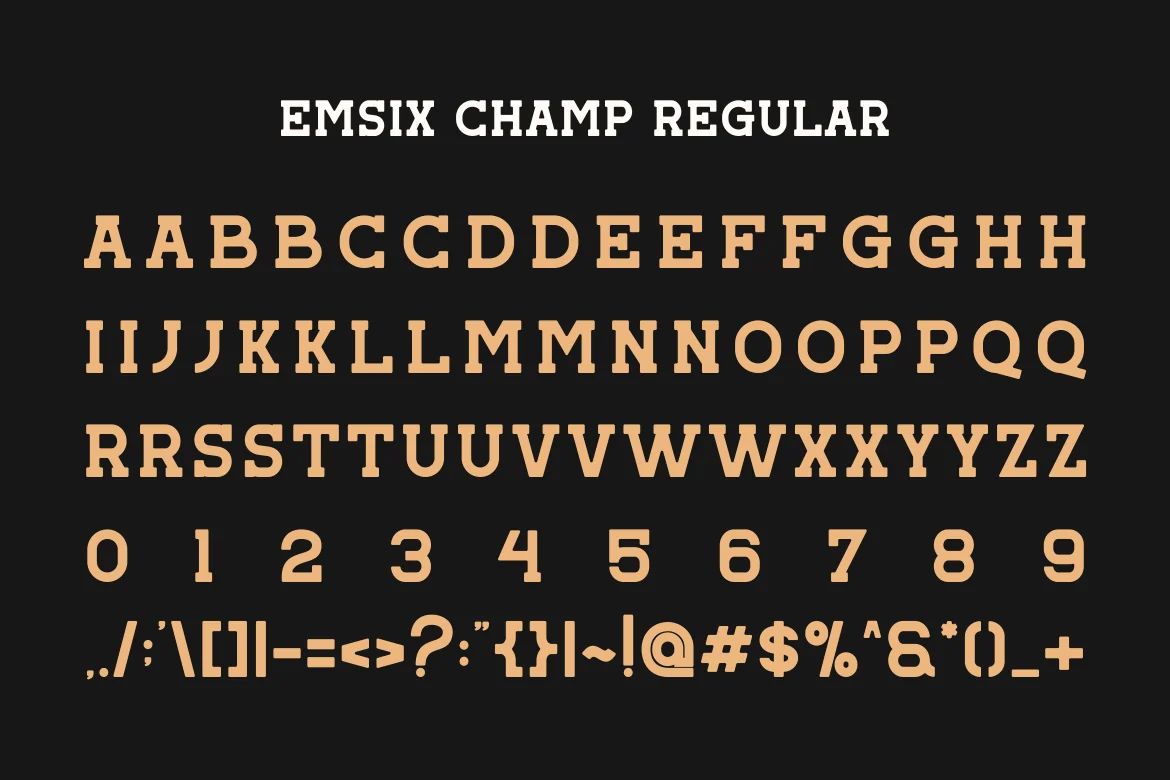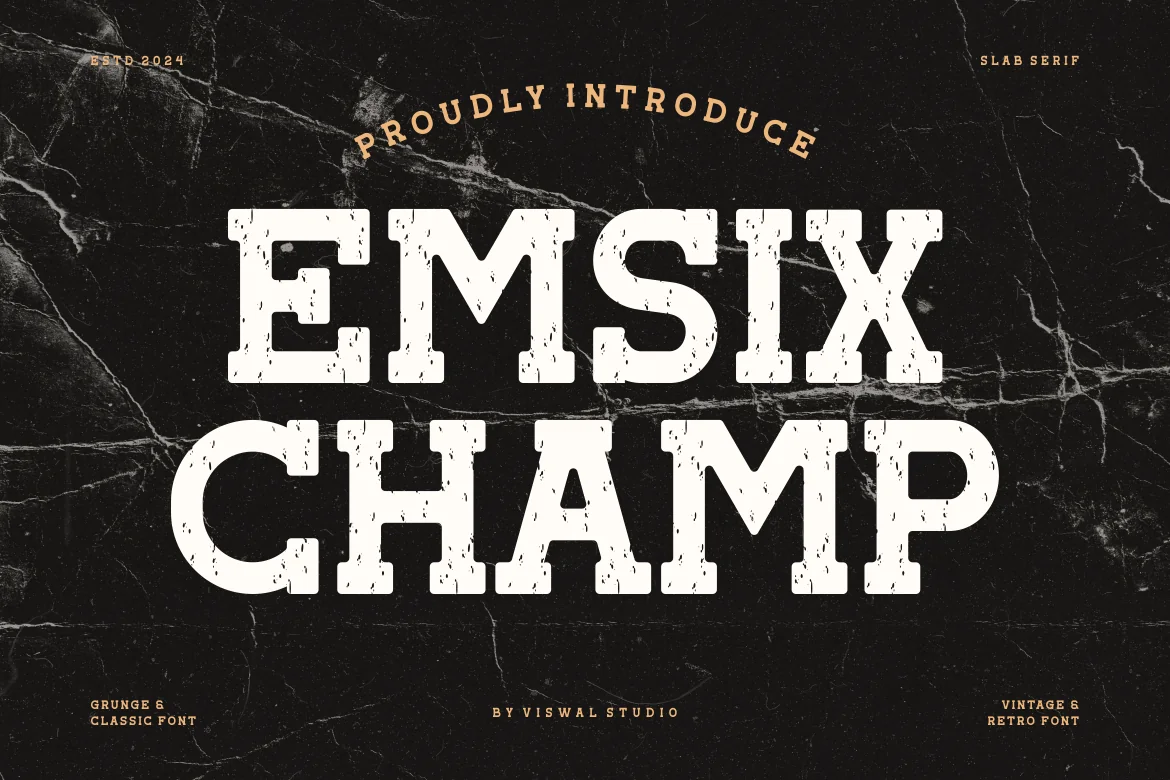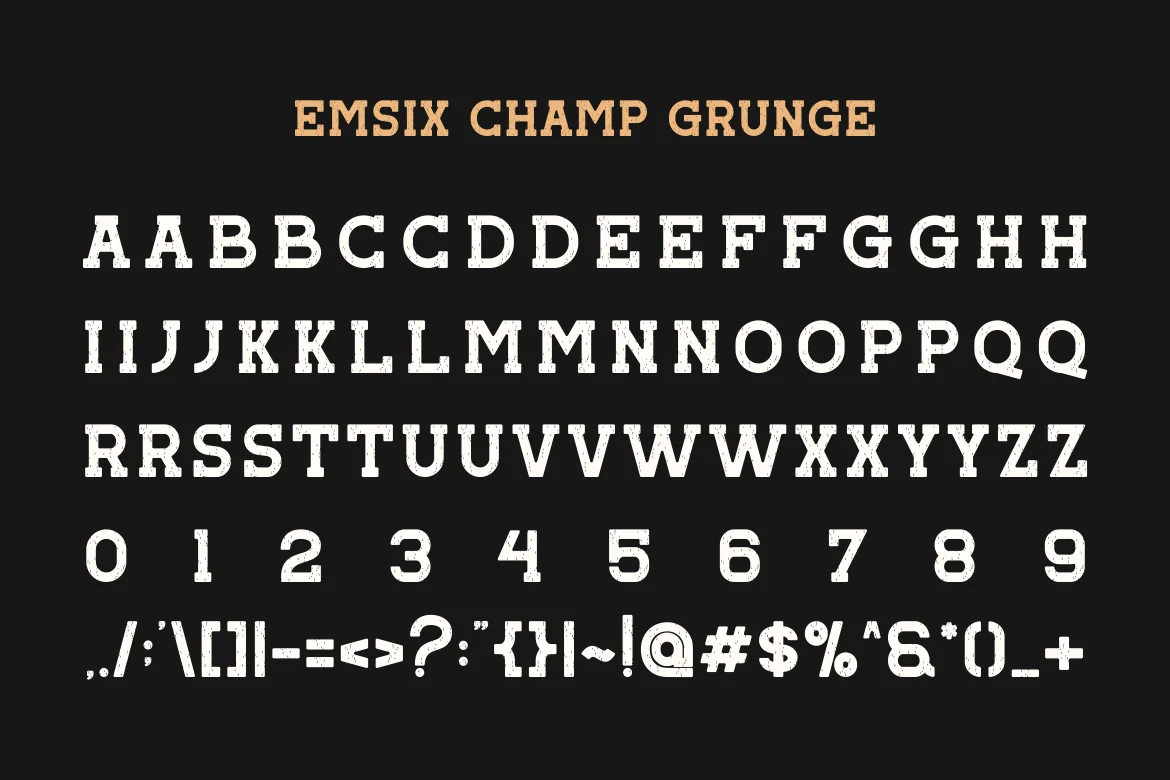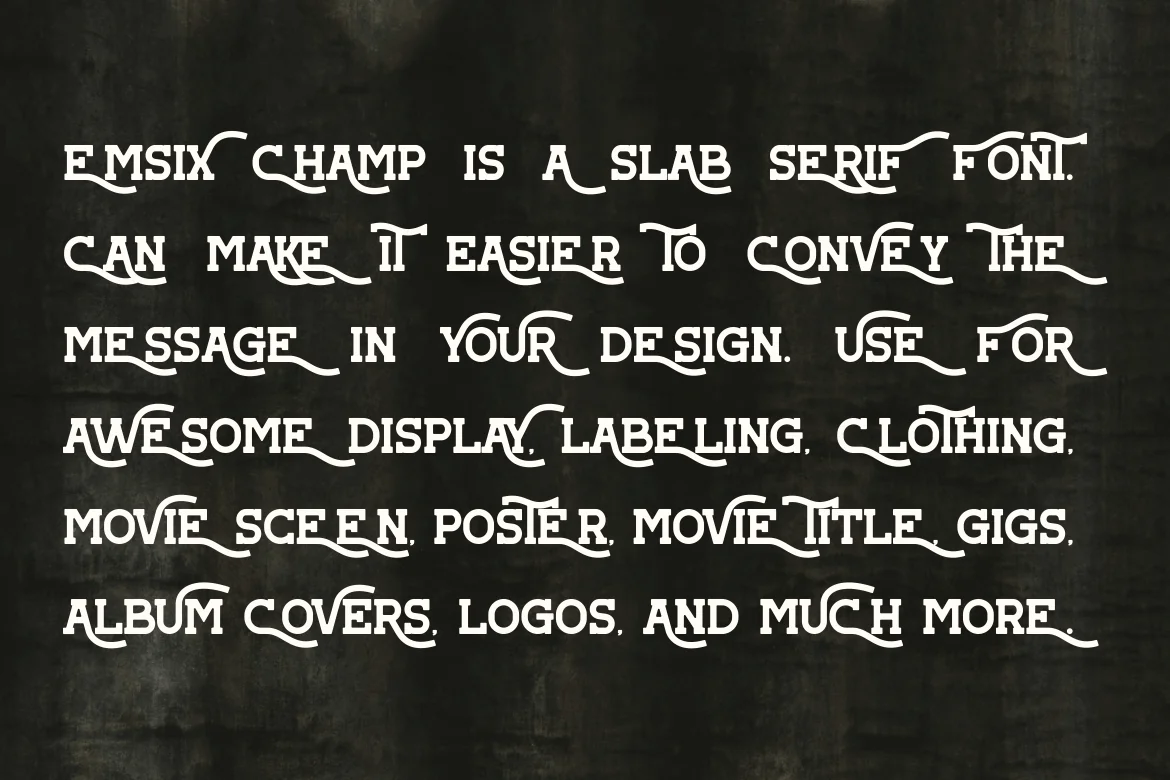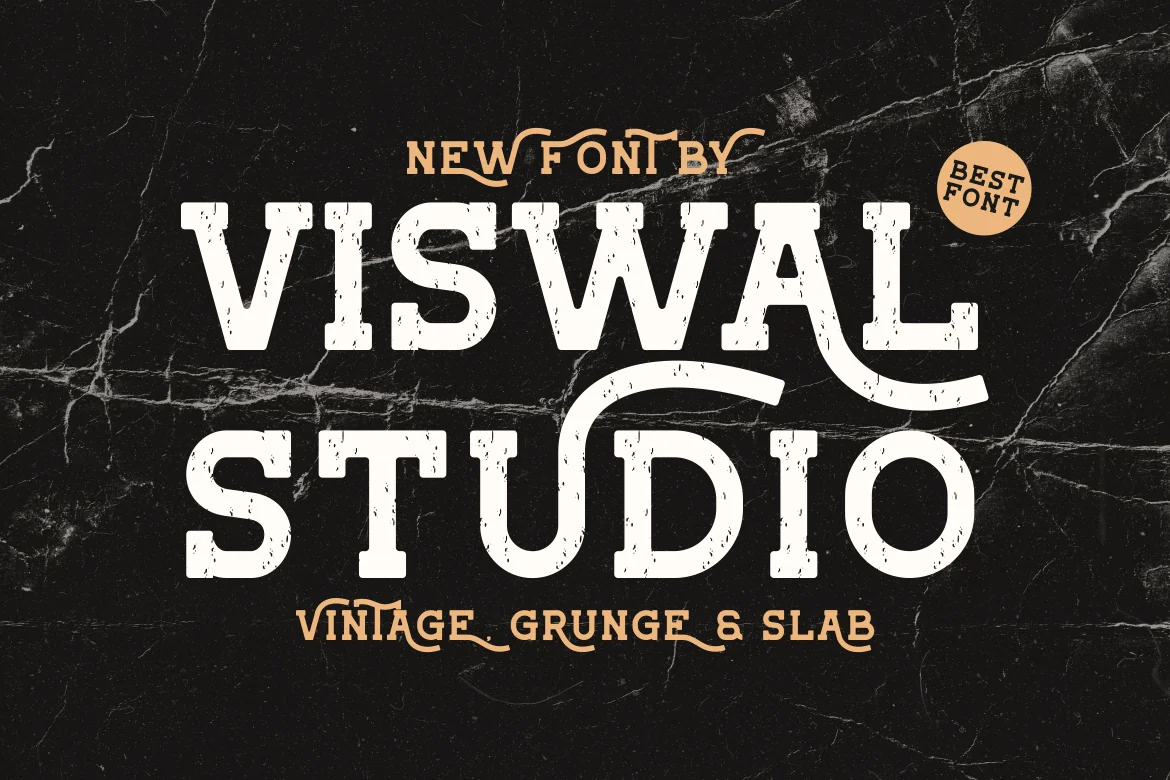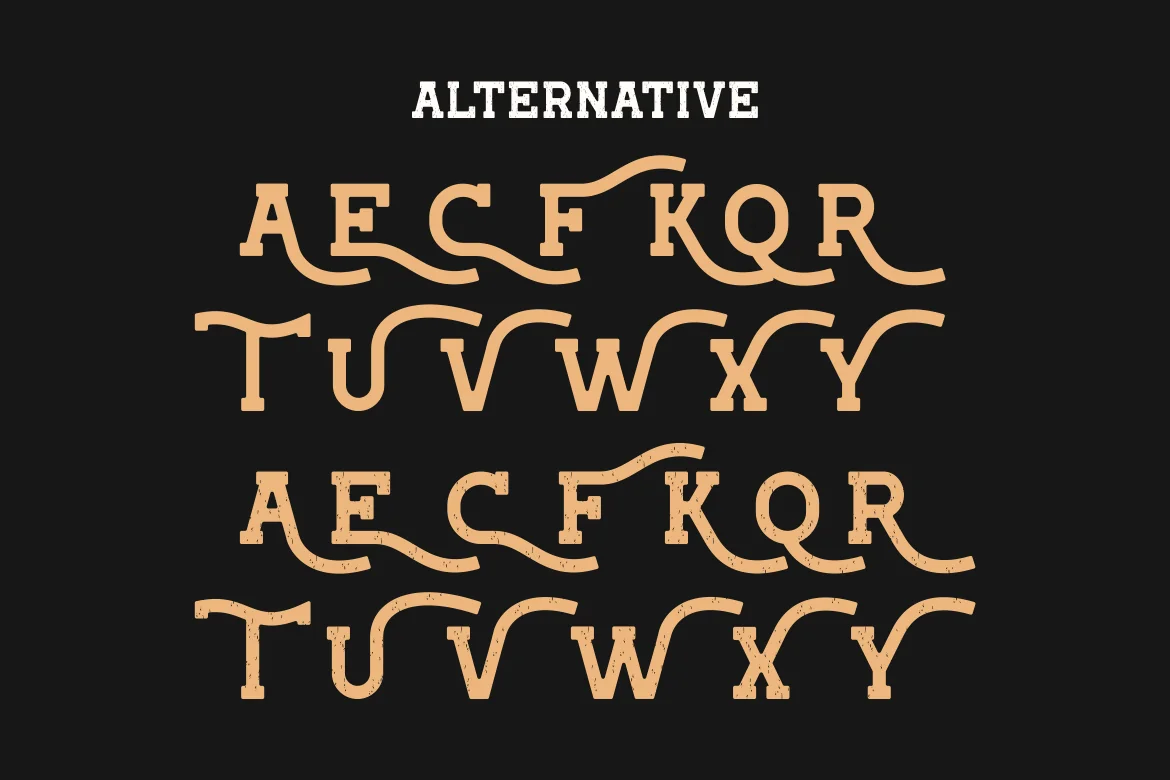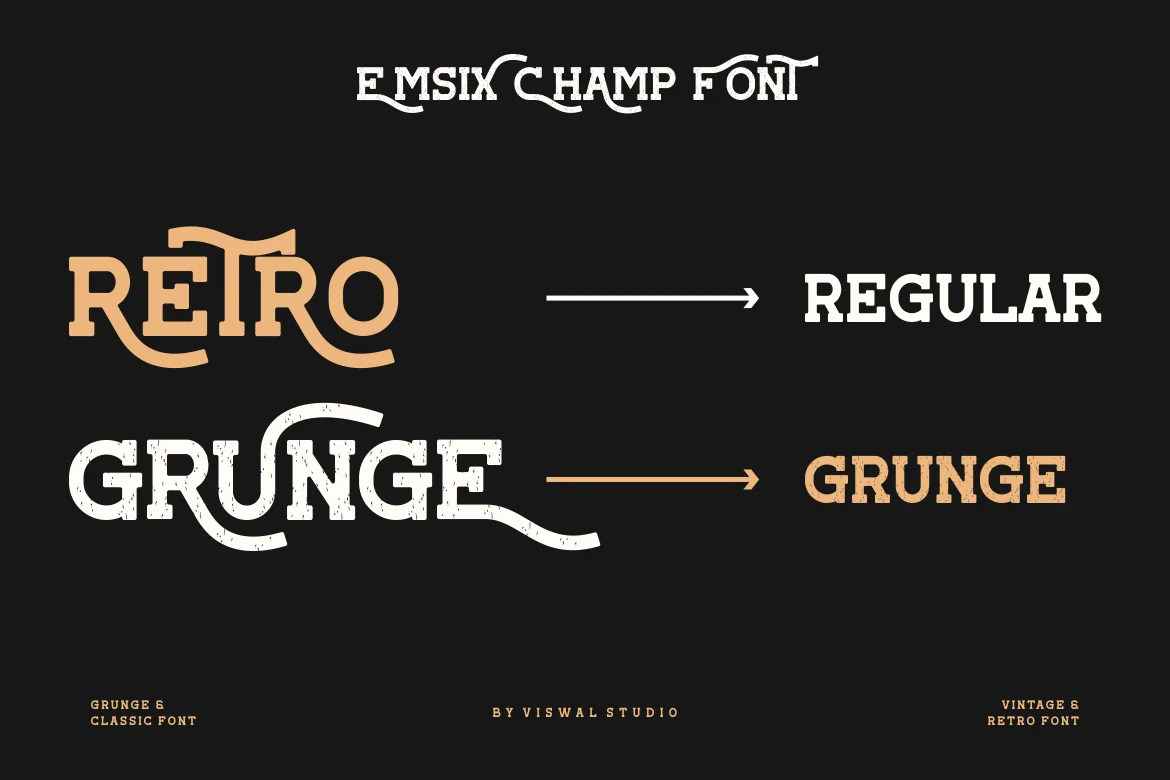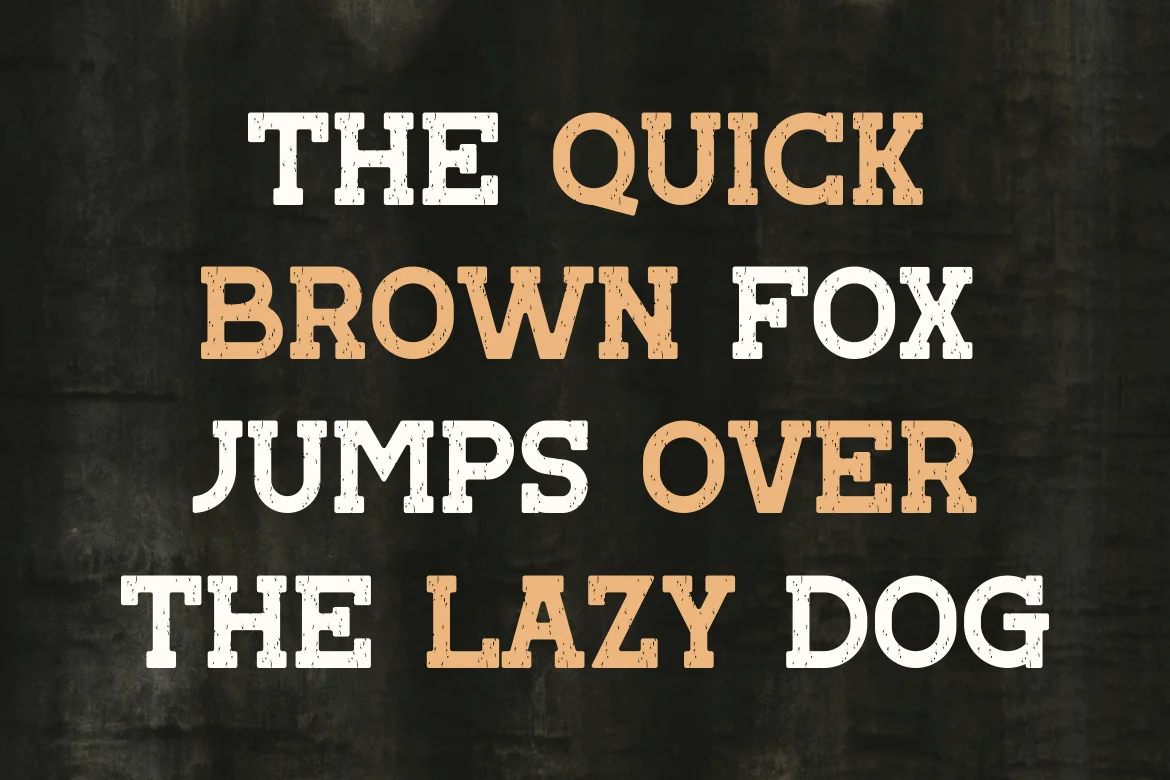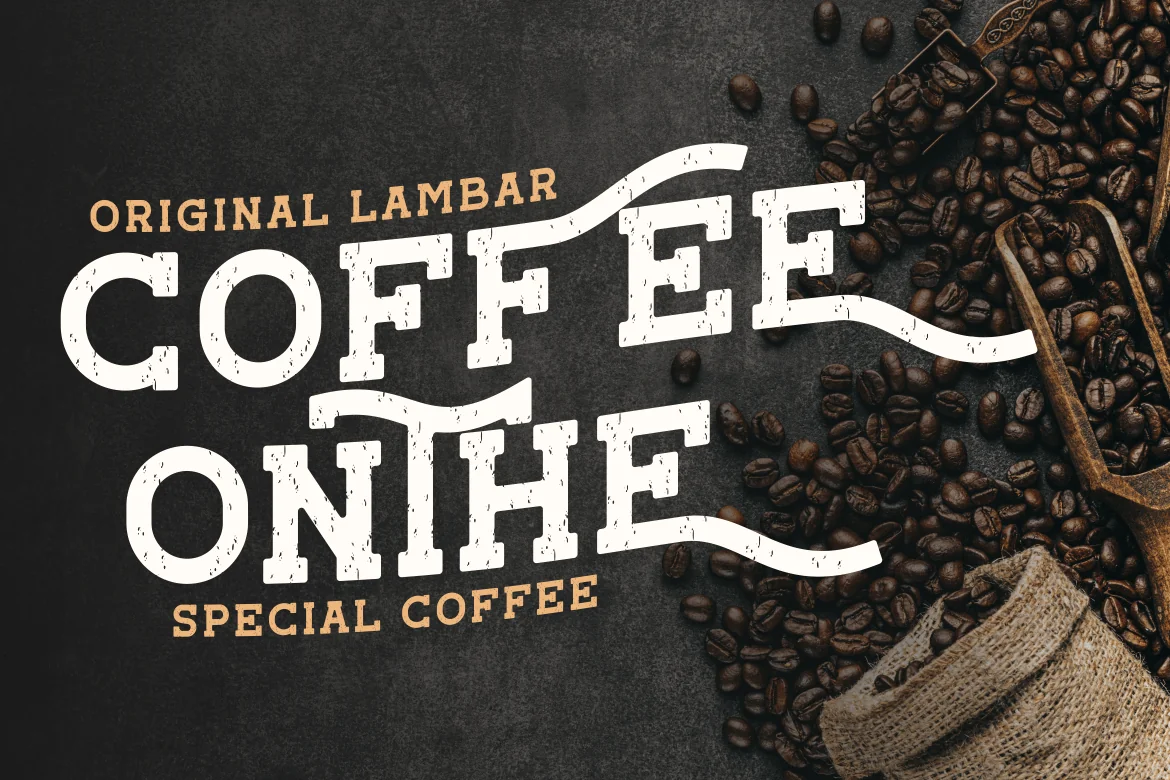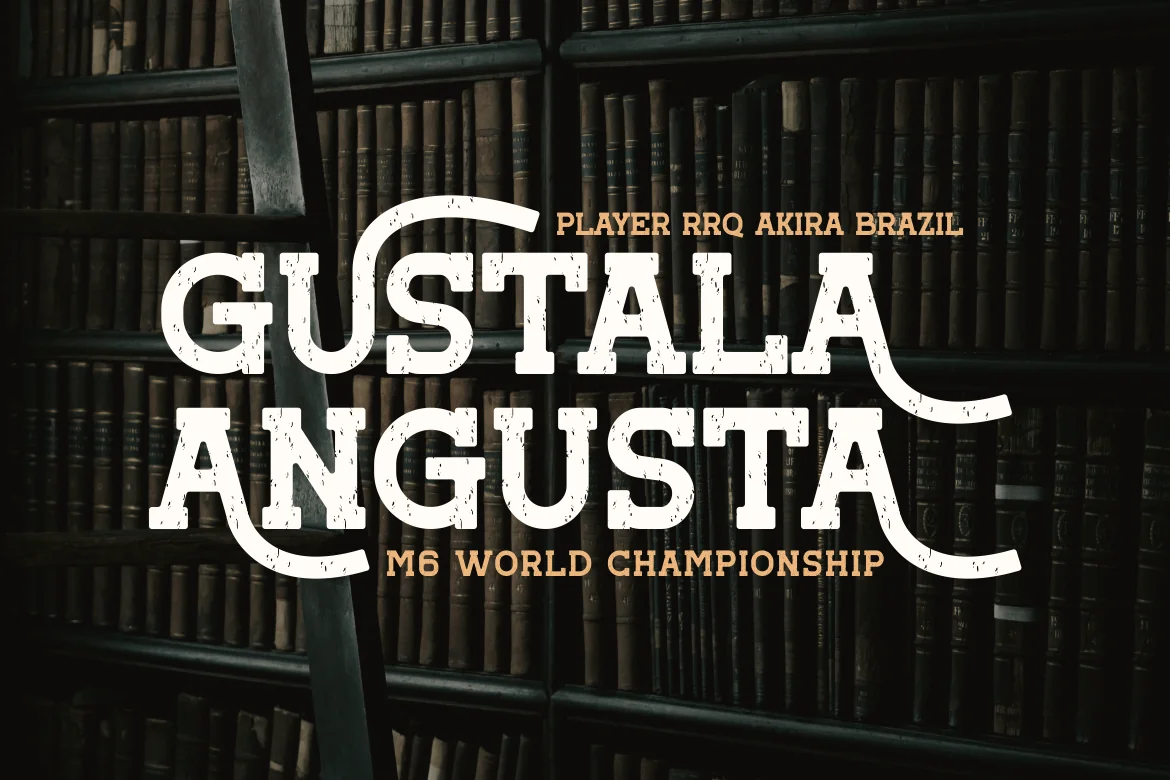
Emsix Champ – Vintage Slab Font
Presenting Emsix Champ – Font is suitable for badge, labels, logo, branding, magazine, poster and etc. Our fonts have Uppercase & Lowercase, Numeral & Punctuation, Multilingual support and Opentype Features. For Amazing designs you can mix with other fonts as a complement.
**Grunge **